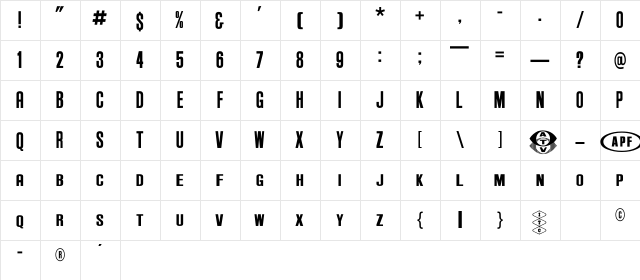
Anderson Supercar Regular
Design Context for Anderson Supercar Typeface
Anderson Supercar is a composed and adaptable typeface that performs quietly and consistently across a wide range of design contexts.